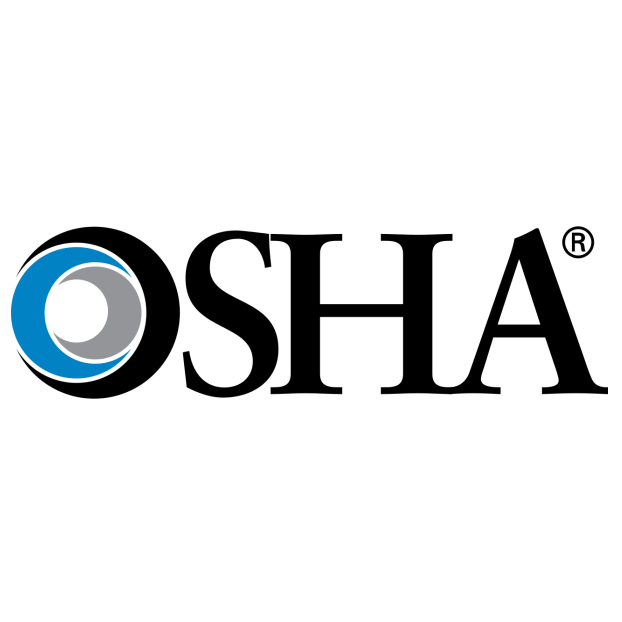
OSHA Logo Font
Fonts in UseThe Occupational Safety and Health Administration (OSHA) is a U.S. federal agency established in 1971 to ensure safe and healthy working conditions by setting and enforcing standards, providing training and education, and conducting research.
OSHA logo features the Sabon LT Bold font, which is an old-style serif typeface created by Jan Tschichold, modeled after types by Claude Garamond, and printed by Konrad Berner.